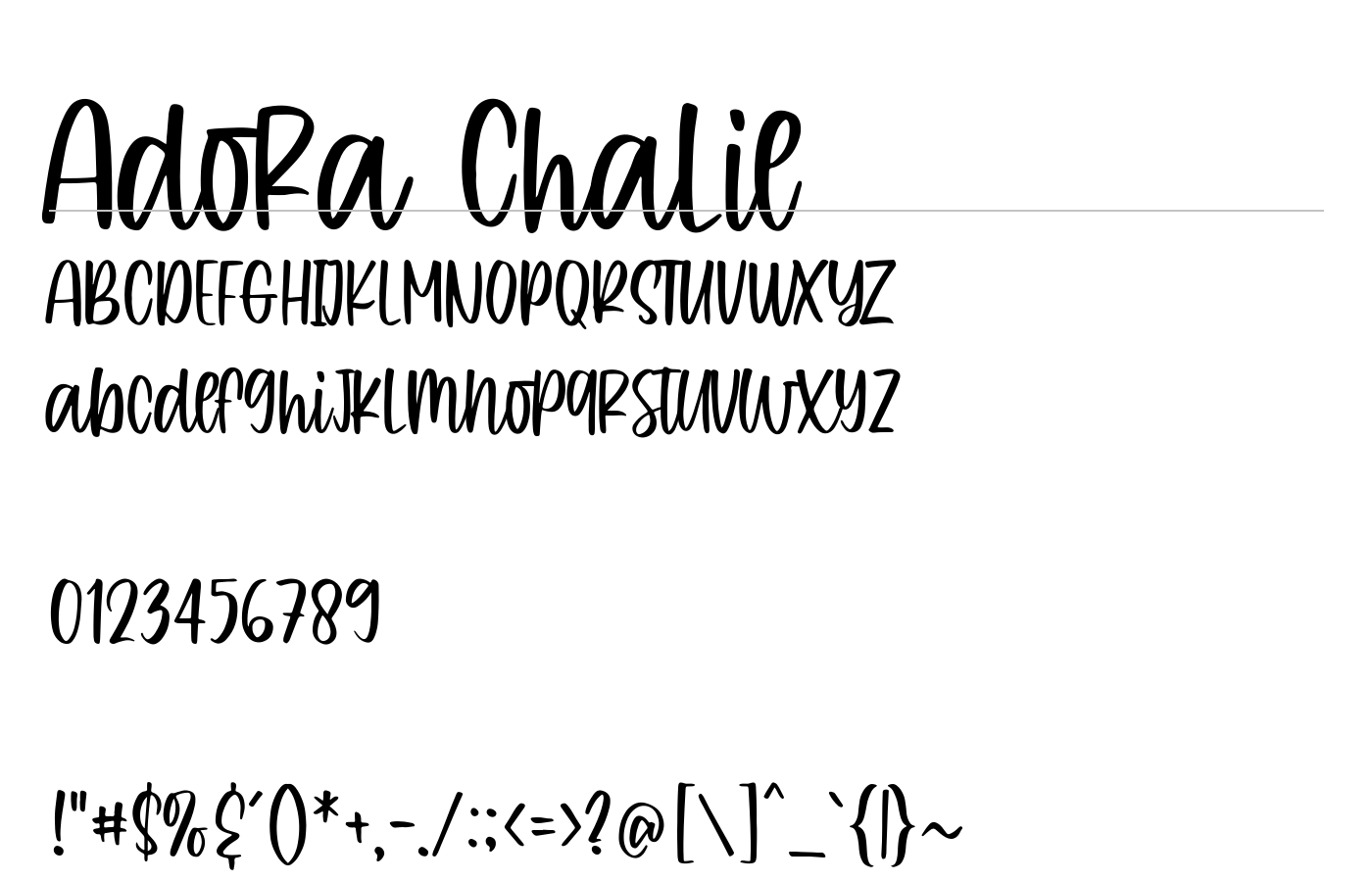
Adora Chalie is a playful and casual handwritten script font with a light, airy feel. Its tall, slightly condensed letterforms and smooth, rounded strokes create an inviting and friendly personality, making it ideal for informal branding, invitations, and creative projects that seek a personal touch. This font works well in headlines and display uses where a warm, approachable vibe is desired.
Adora Chalie Font
About Adora Chalie Font